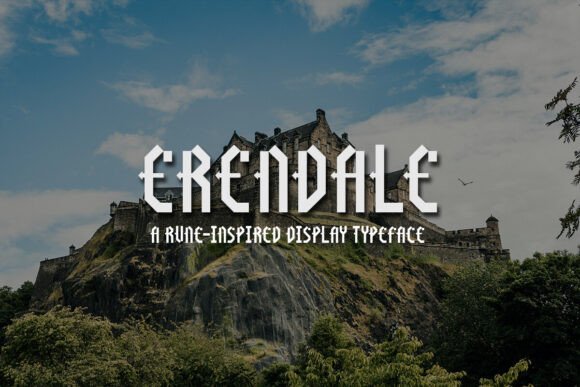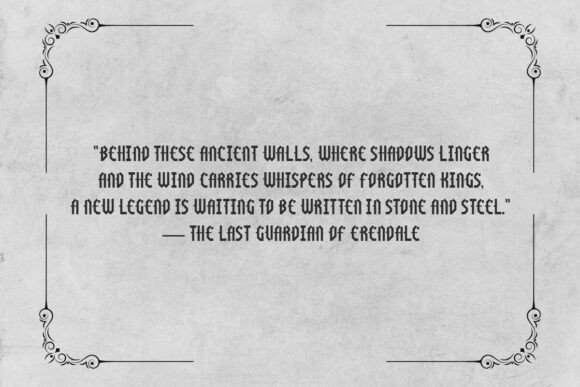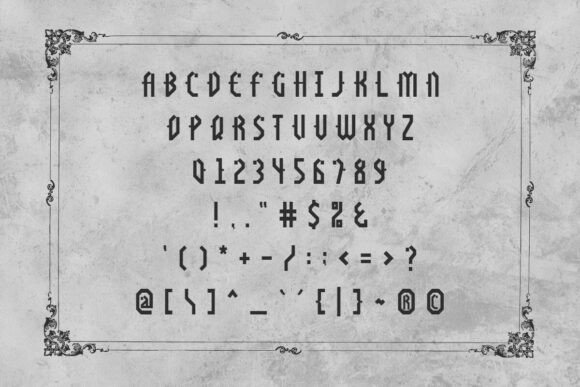
Erendale Font: A Bold Gothic Display Font for Fantasy & Unique Designs
About the Erendale Font
From logos to headlines, the Erendale Font is the perfect choice for making a lasting impression. Erendale is a bold and angular display typeface inspired by ancient runes, medieval scripts, and the raw power of the North. With sharp strokes, geometric precision, and a heavy Gothic presence, this font evokes the feeling of forgotten legends, icy mountains, and warrior chants echoing through the halls of stone.
Perfect for fantasy book covers, heavy metal album art, game titles, or any design that needs to feel epic, mystical, and powerful.
Erendale excels in large-scale applications such as headlines, posters, and logos where its bold presence commands attention. It’s ideal for branding projects aiming for a strong, memorable identity, particularly within gaming, fantasy, or heavy metal contexts. Avoid using Erendale for body text or UI elements; its highly stylized forms are illegible at smaller sizes and hinder readability in continuous text.
Pairing Erendale effectively requires considering its angularity and weight. A clean, geometric sans-serif like Futura or a neutral serif such as Garamond would provide a sophisticated counterpoint, balancing its raw energy with readability. For a more playful contrast, consider a rounded sans-serif like Bebas Neue, which softens the overall aesthetic without undermining Erendale’s power.
The font’s core personality is undeniably bold and powerful, conveying a sense of authority and mythical grandeur. Its rugged aesthetic suits projects that demand strength, resilience, and a touch of untamed energy.
Erendale Font Usage Examples
Erendale Font Example